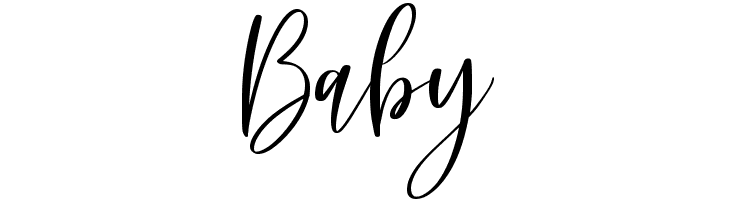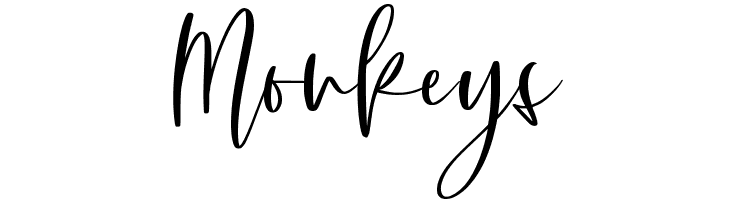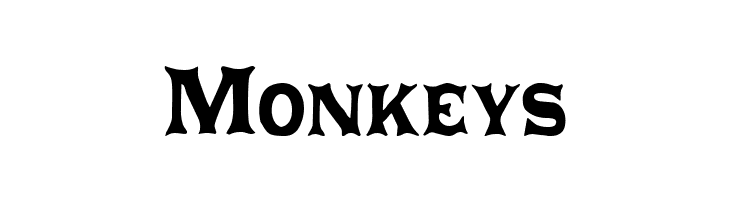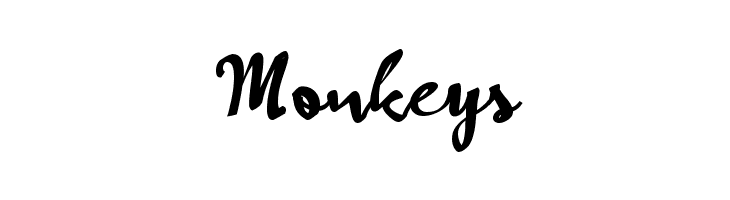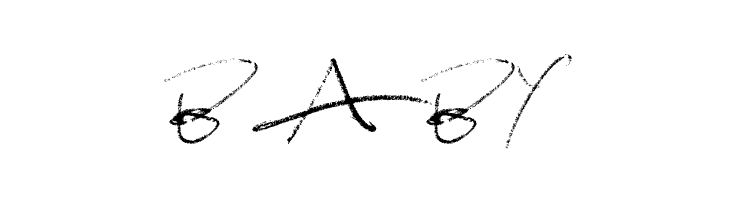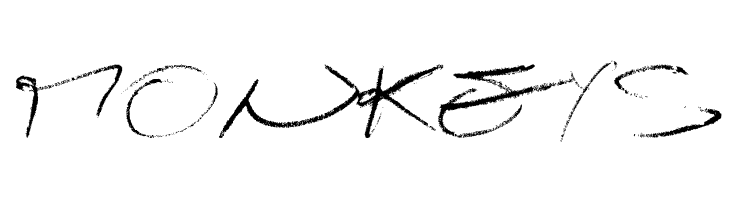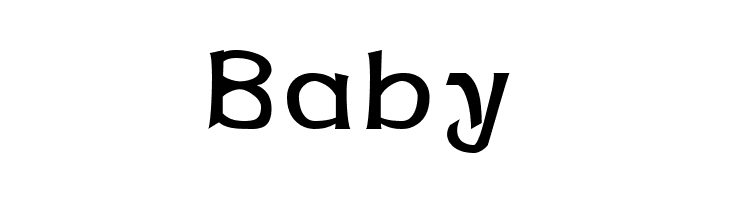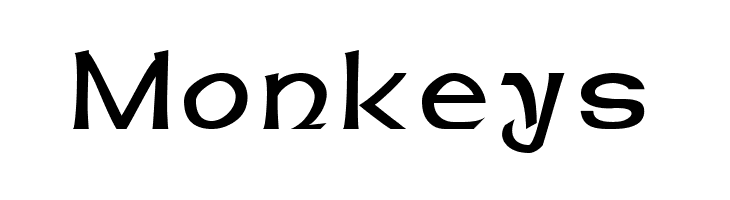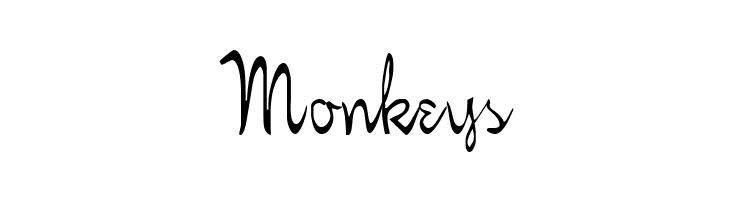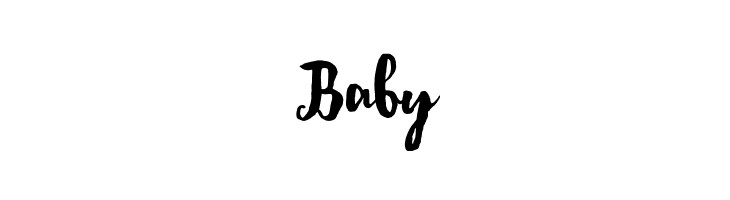
A graceful script font with flowing, connected strokes and elegant swashes.
An elegant, flowing script font with a sophisticated cursive style.
A bold, expressive script font with dynamic calligraphic flair.
A bold, decorative font with a playful yet strong style.
A flowing, cursive script with elegant, connected letters.
A whimsical script font with flowing, curly strokes and playful loops.
A dynamic and expressive handwritten font with fluid strokes.
A modern, elegant script font with flowing, cursive strokes.